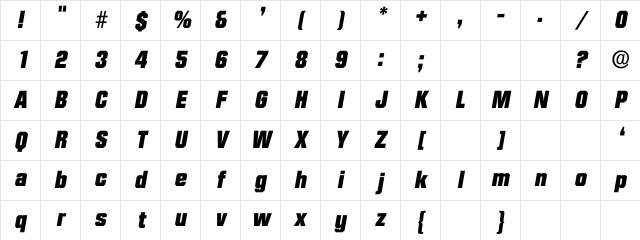
JackDempseyItal Regular
Design Context for JackDempseyItal
JackDempseyItal is a composed and adaptable typeface that performs quietly and consistently across a wide range of design contexts.
Pro Tip: Use JackDempseyItal in both headline and body roles to test its range before committing to a single application.